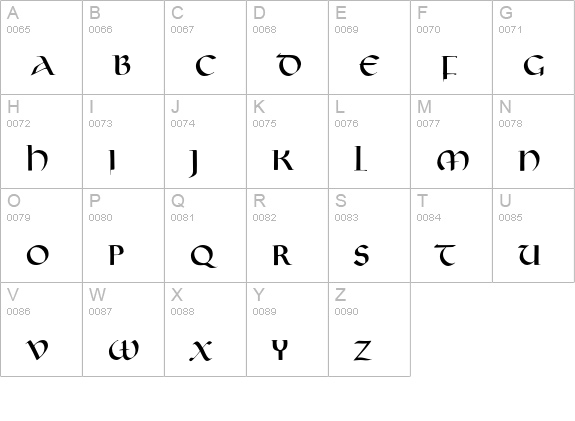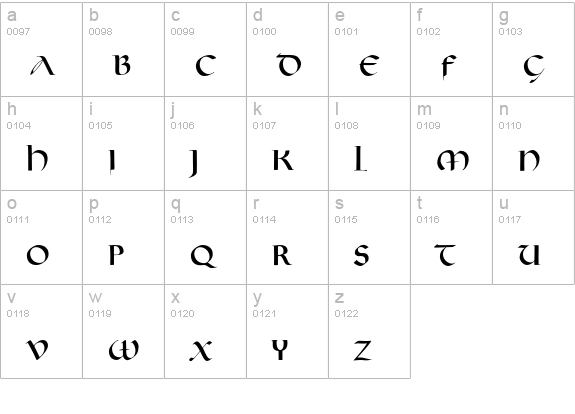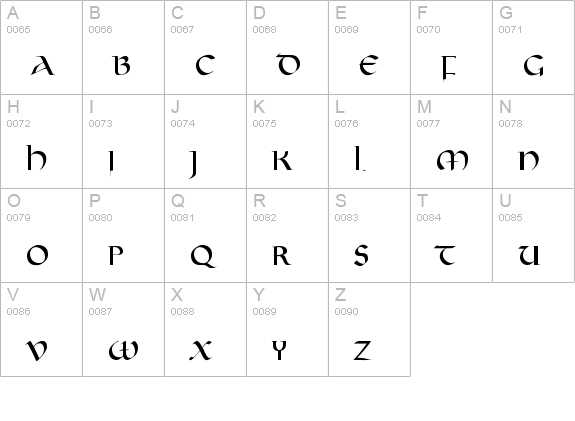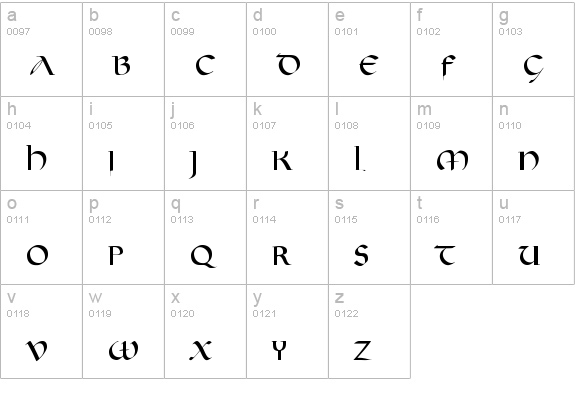
Lukrezia Font Details
Introducing Lukrezia Font, a stunning typeface that effortlessly blends elegance with modernity. This versatile font exudes sophistication and charm, making it perfect for a wide range of design projects. With its sleek lines and graceful curves, Lukrezia Font is sure to elevate any text or branding it graces. But the best part? Lukrezia Font is completely free to download at FontsMarket.com, making it accessible to all designers and creatives looking to add a touch of class to their work. Whether you're designing a logo, creating invitations, or crafting a website, Lukrezia Font is the perfect choice for achieving a polished and professional look. Don't miss out on this incredible opportunity to enhance your designs with the beauty of Lukrezia Font. Download it for free today and take your typography game to the next level!